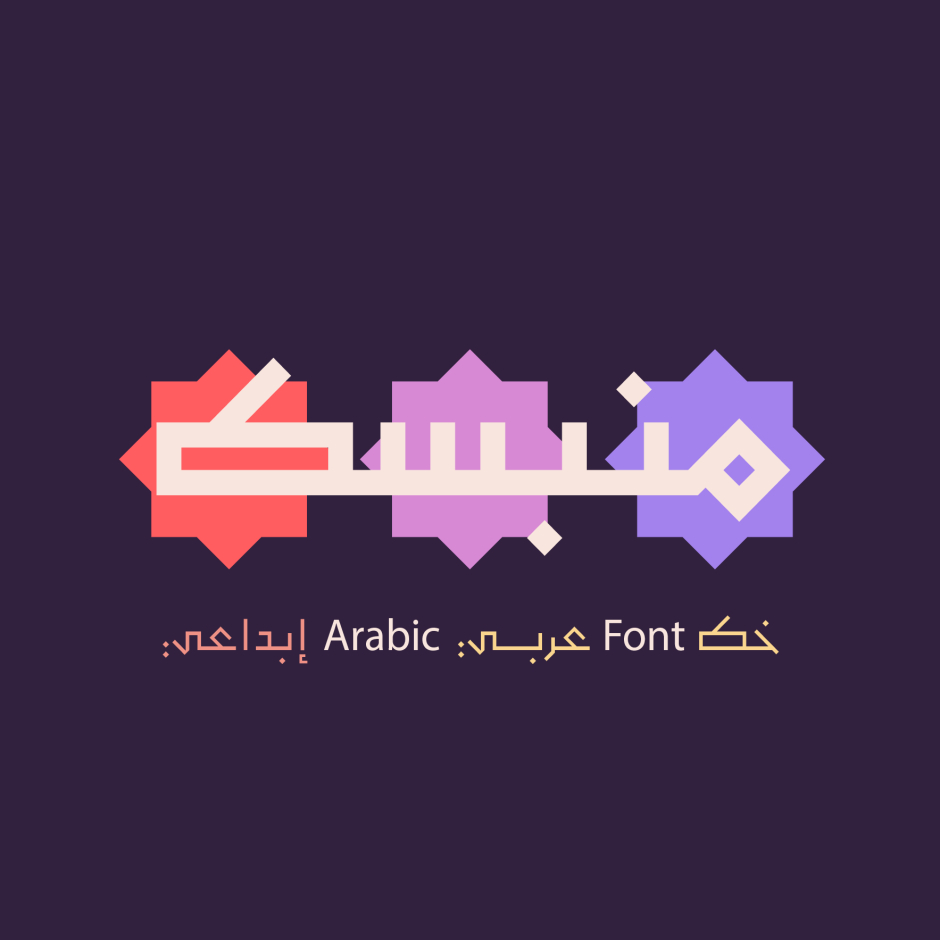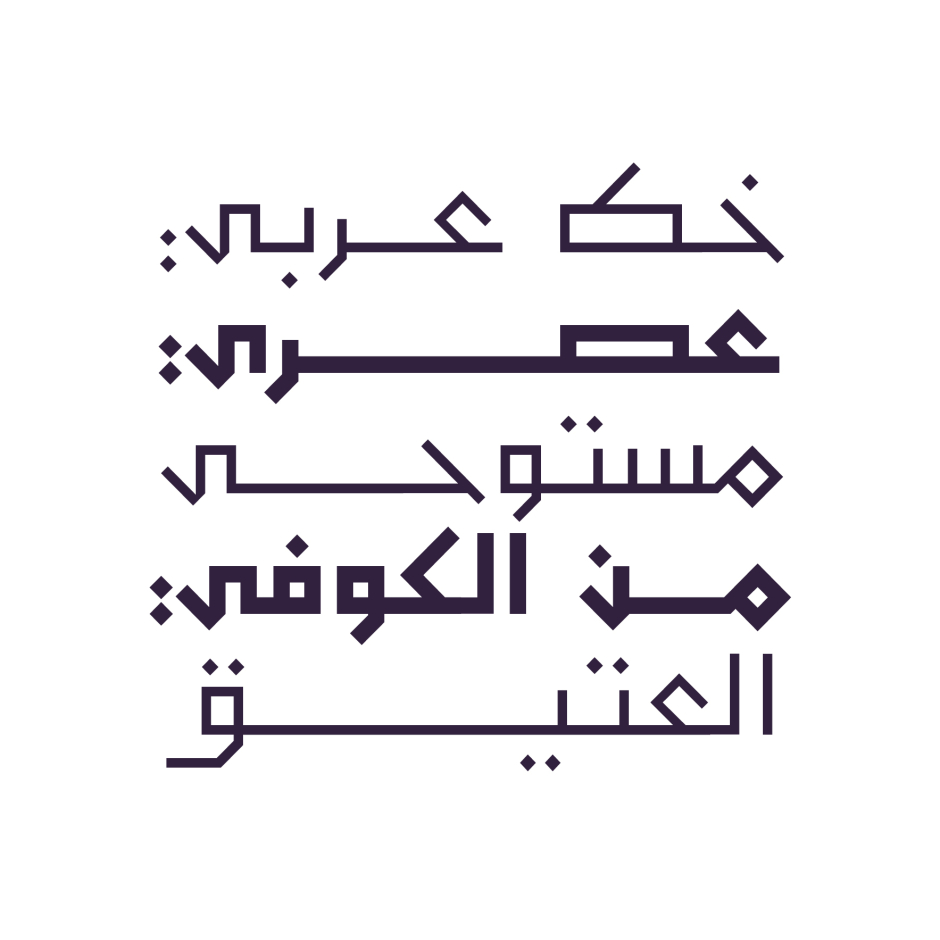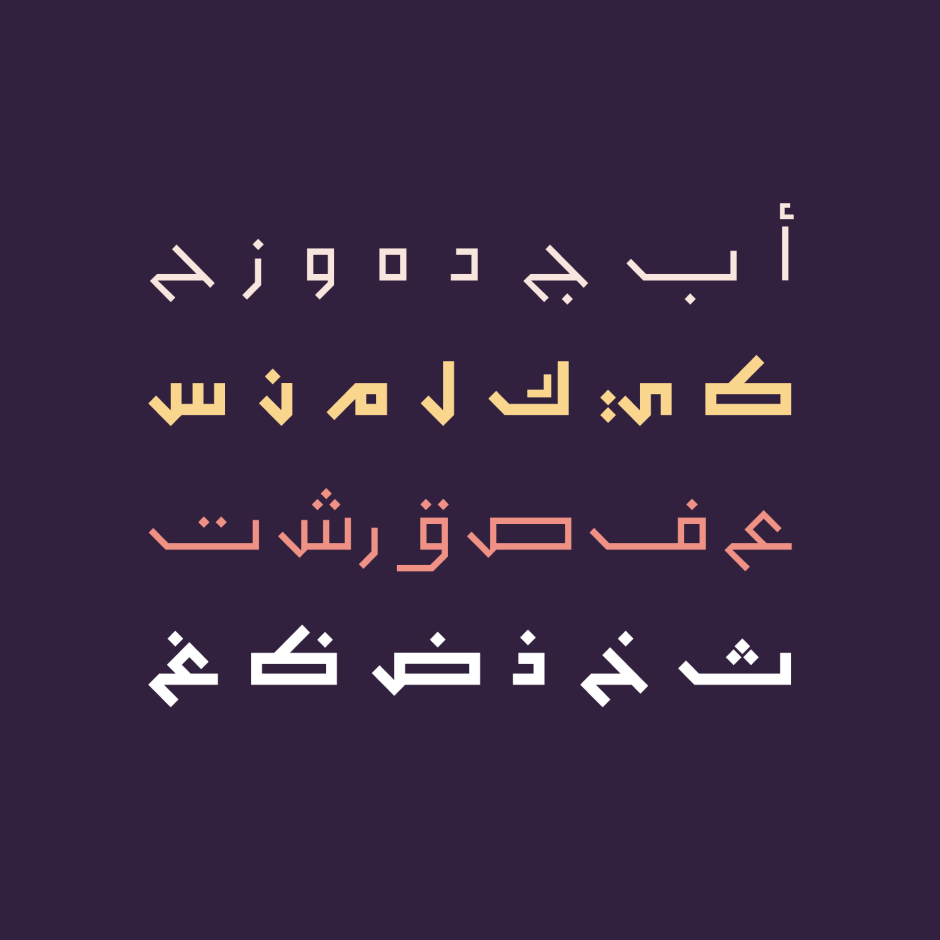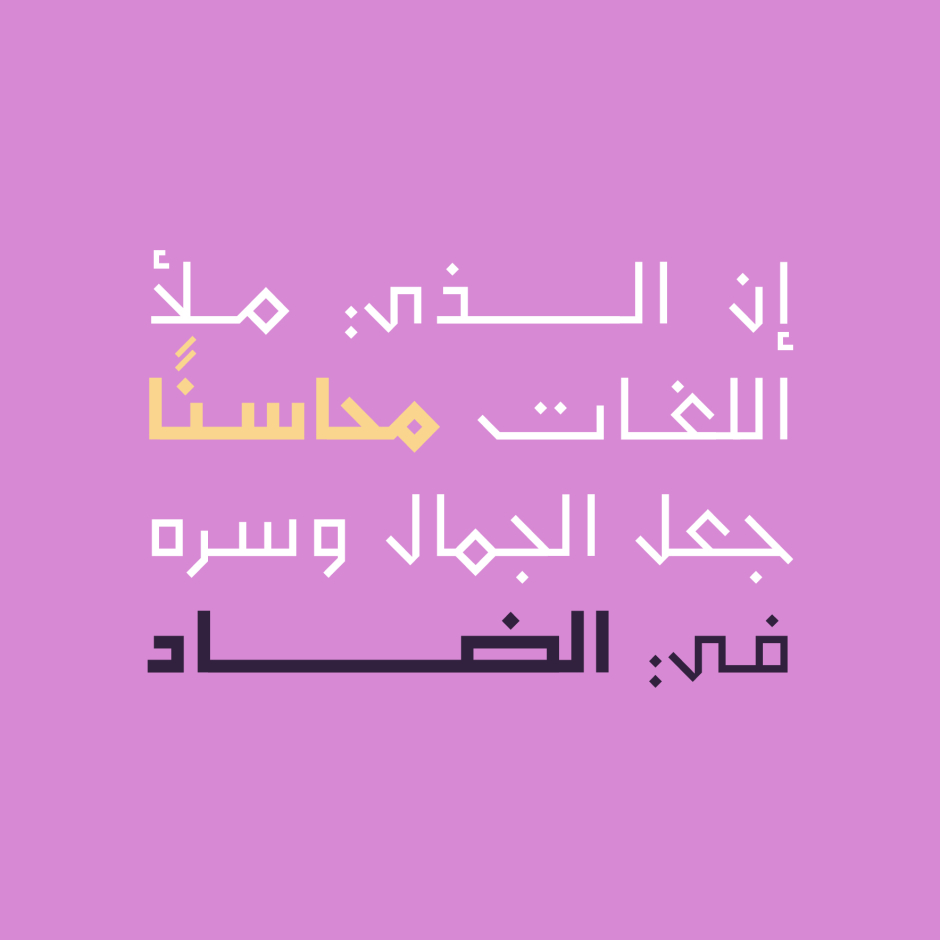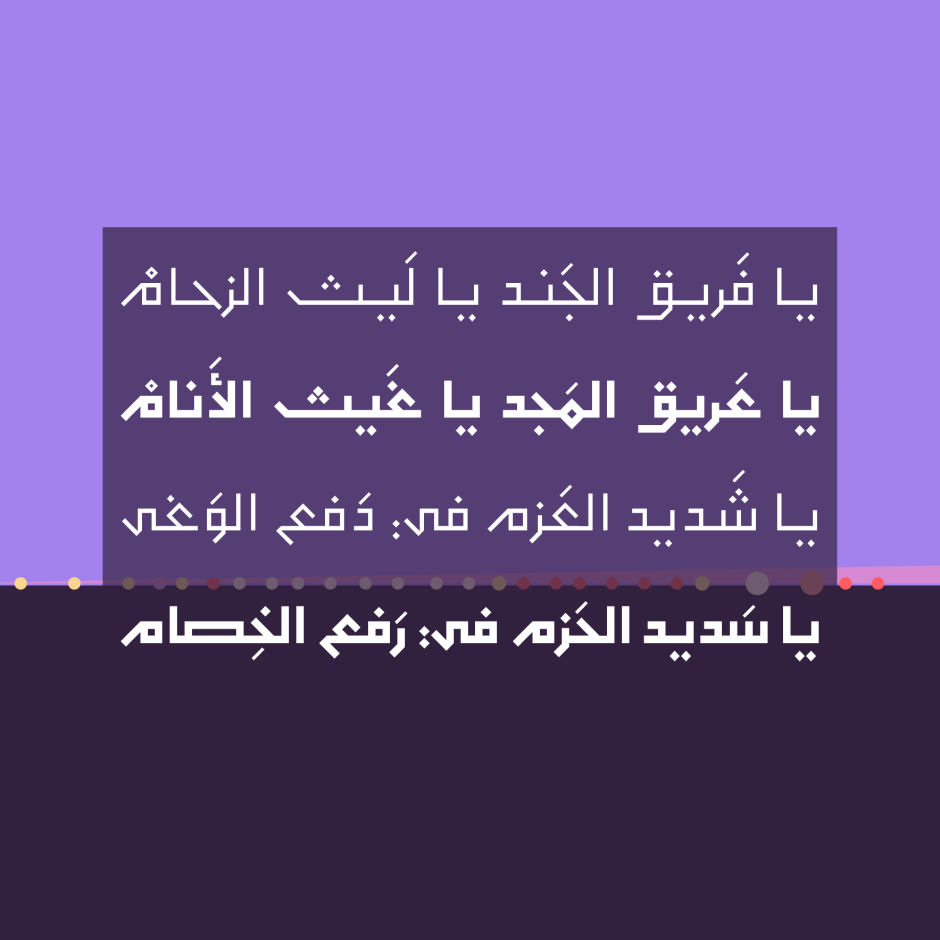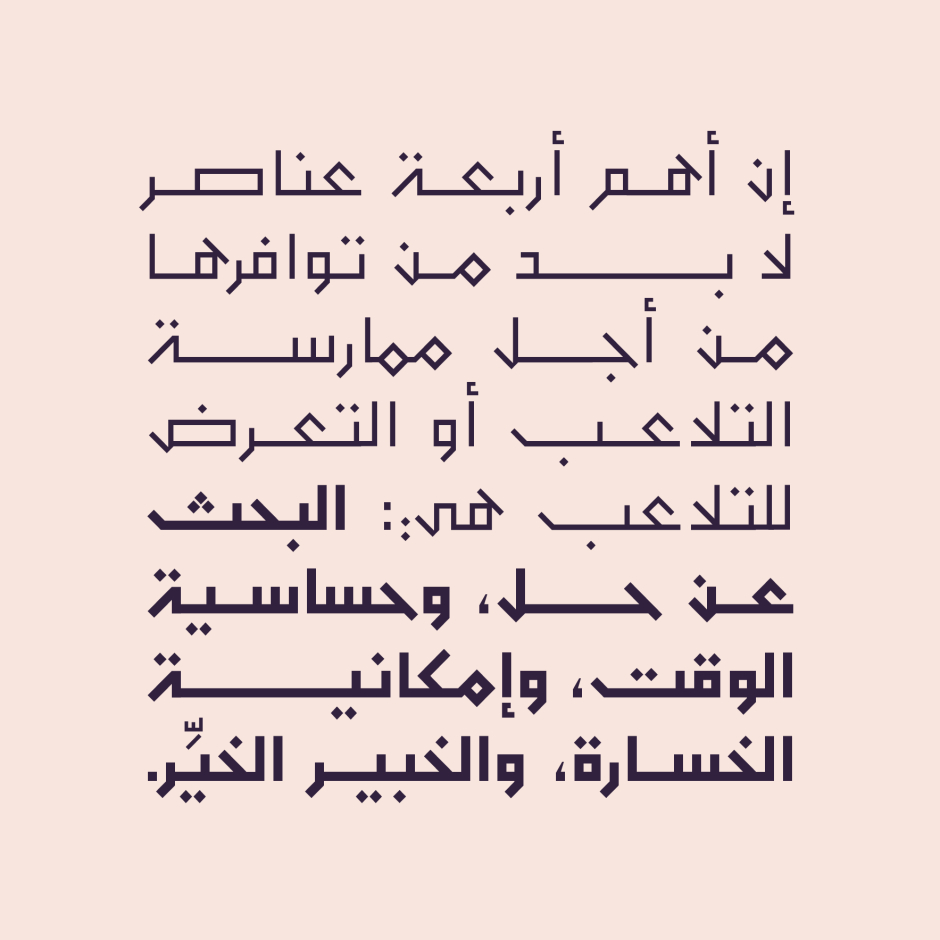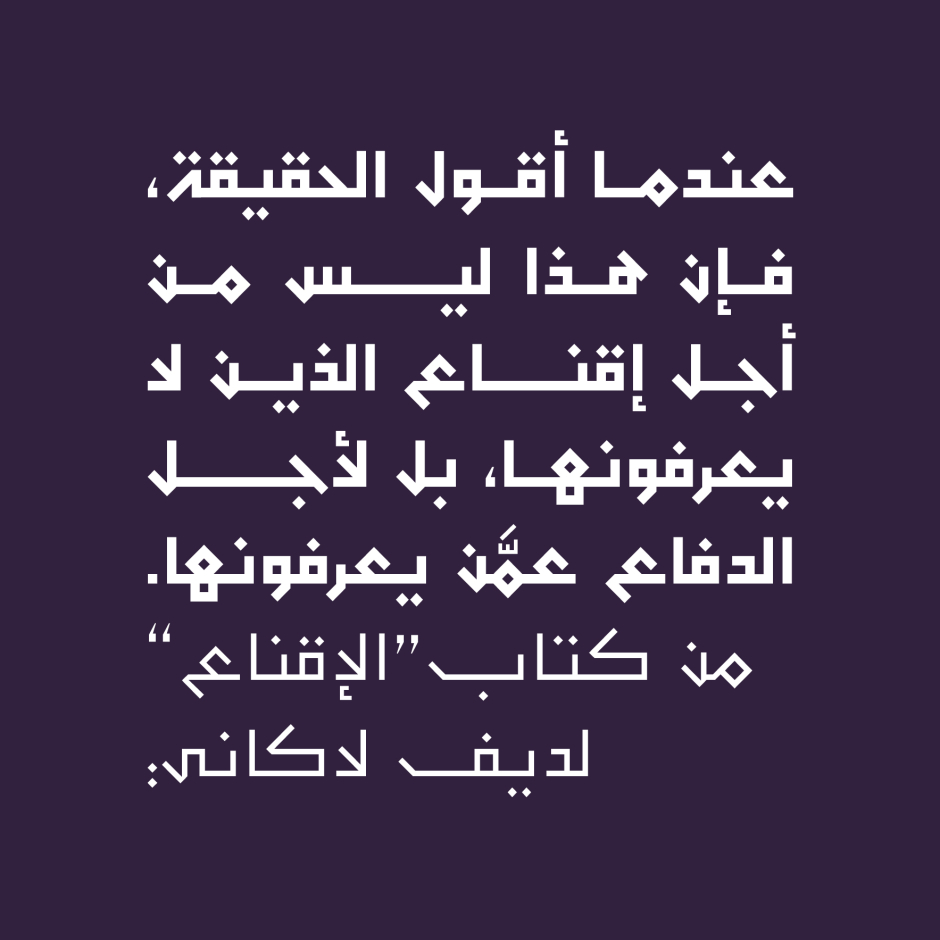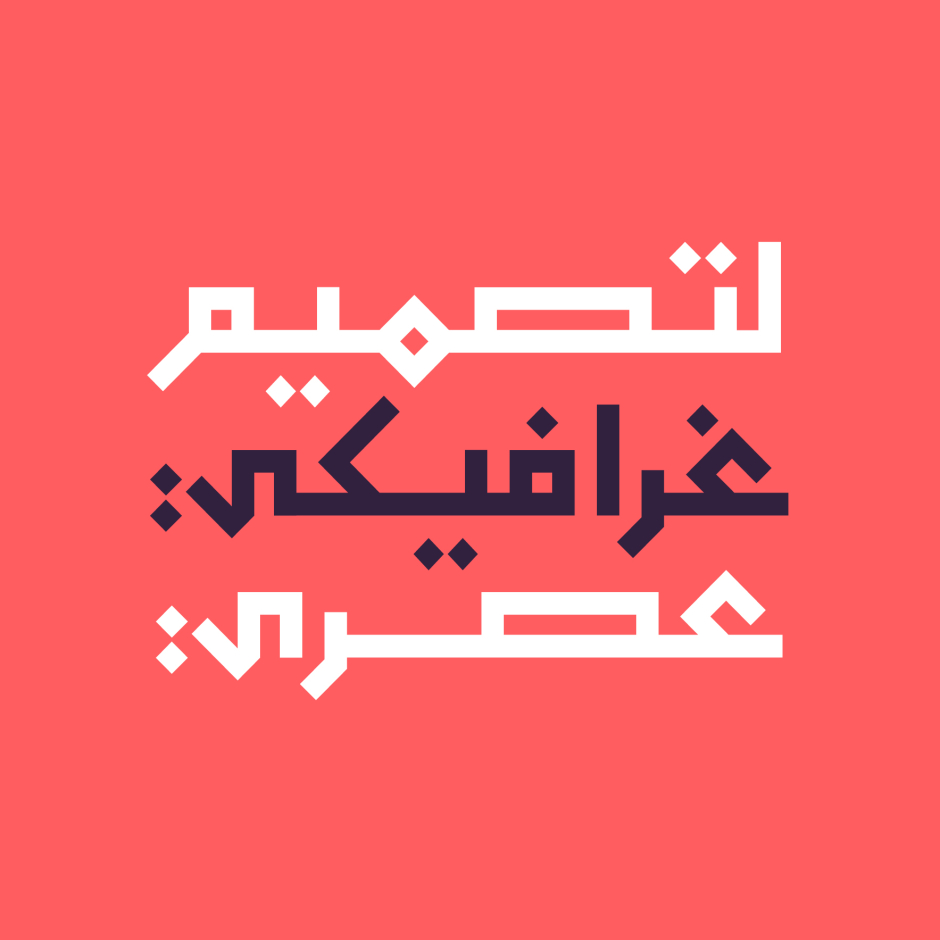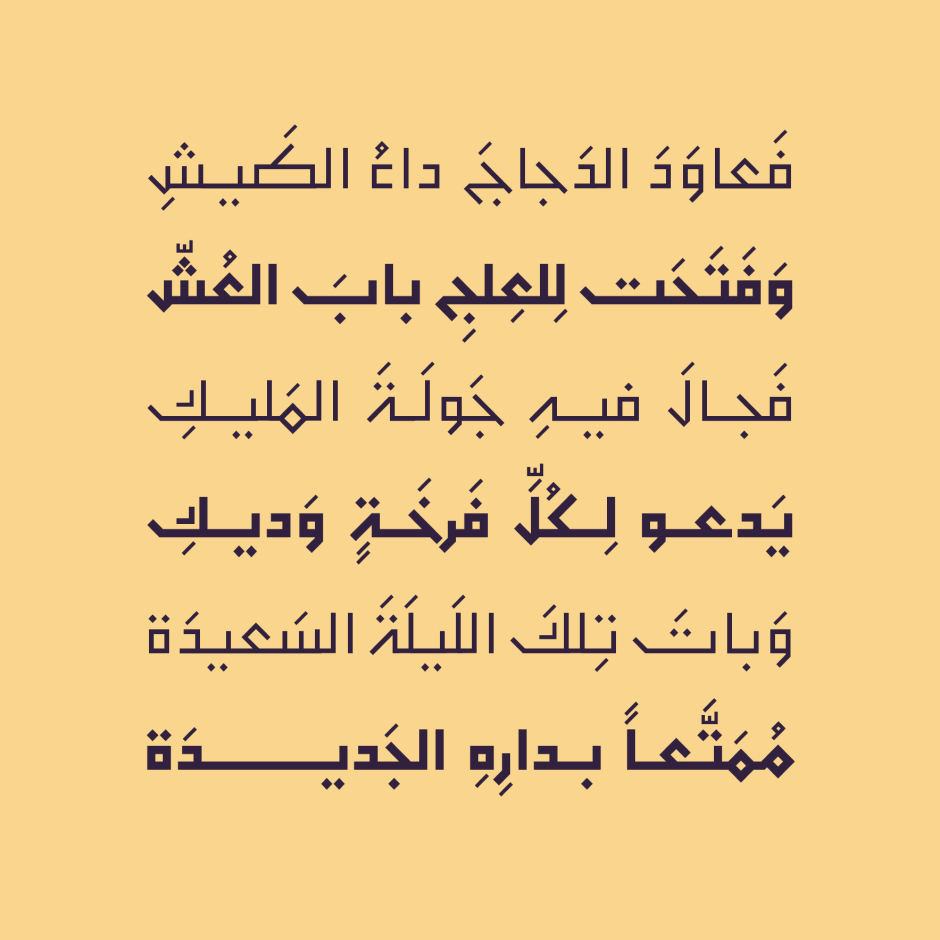
Monbasit
Monbasit (the Arabic word for 'Flattened') is an Arabic display font that features prolonged letterforms with geometric structure. The font design is inspired by a blend of Ancient and Square Kufic scripts. Monbasit typeface consists of two weights (Regular and Bold) and it suits modern creative projects. It supports Windows, macOS and mobile applications.